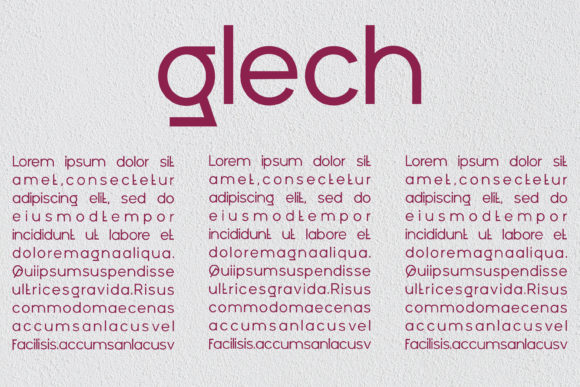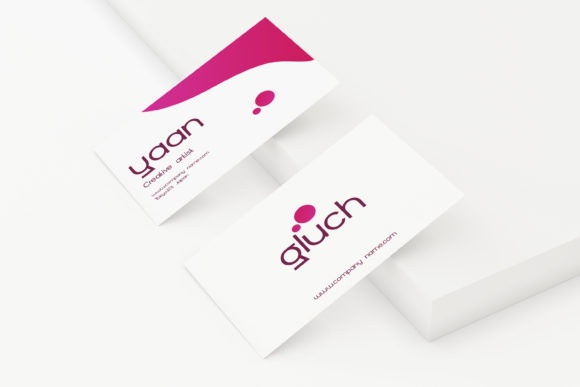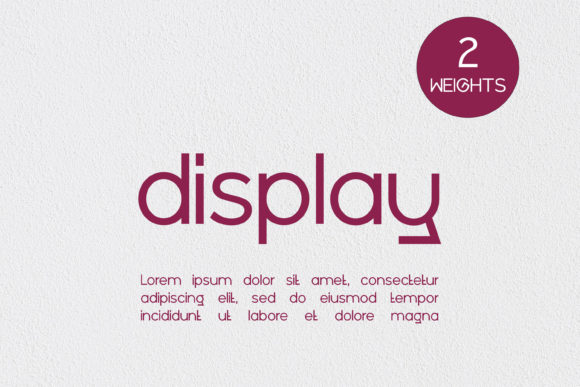
Glech Font: Elevate Your Designs with a Clean and Modern Sans Serif Font
In the world of typography, a good font can make all the difference in creating a lasting impression. For designers and crafters looking for a clean, modern, and versatile font, Glech is an excellent choice. This sans serif font is designed to add a smart and cool touch to your web designs, logos, and various other projects that require a techno-styled edge.
What is Glech Font?
Glech is a minimalist sans serif font that exudes a sense of modernity and sophistication. Its clean lines and simple shapes make it an ideal choice for designers who want to create a professional and sleek look. The font’s versatility allows it to be used in a wide range of applications, from web design and logos to branding and packaging.
Key Features of Glech Font
- Clean and Modern Design: Glech’s sans serif design gives it a clean and modern look that’s perfect for creating a professional image.
- Minimalist Style: The font’s minimalist style makes it easy to read and versatile enough to be used in various contexts.
- Techno-Styled Edge: Glech’s sleek design gives it a techno-styled edge that’s perfect for creating a cutting-edge look.
- Highly Legible: The font is highly legible, making it suitable for use in body text, headings, and titles.
Benefits of Using Glech Font
Using Glech font in your designs offers several benefits, including:
- Enhanced Readability: Glech’s clean design and simple shapes make it easy to read, even at small font sizes.
- Professional Look: The font’s modern and sleek design gives your designs a professional look that’s sure to impress.
- Versatility: Glech can be used in a wide range of applications, from web design and logos to branding and packaging.
- Time-Saving: With Glech, you can create professional-looking designs quickly and easily, saving you time and effort.
How to Use Glech Font in Your Designs
Using Glech font in your designs is easy. Here are a few tips to get you started:
- Pair it with Other Fonts: Glech pairs well with other fonts, so feel free to experiment with different combinations to create a unique look.
- Use it for Headings and Titles: Glech’s bold and sleek design makes it perfect for use in headings and titles.
- Experiment with Different Colors: Glech looks great in a variety of colors, so don’t be afraid to experiment with different color schemes.
In conclusion, Glech font is a clean, modern, and versatile sans serif font that’s perfect for designers and crafters looking to add a smart and cool touch to their designs. With its minimalist style, techno-styled edge, and high legibility, Glech is an excellent choice for a wide range of applications. Whether you’re creating a website, logo, or branding materials, Glech is sure to elevate your designs to the next level.